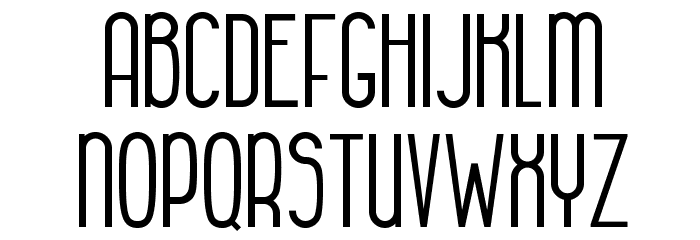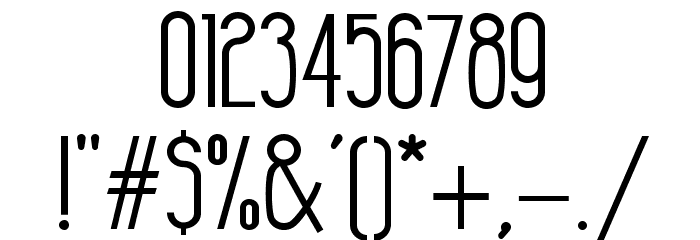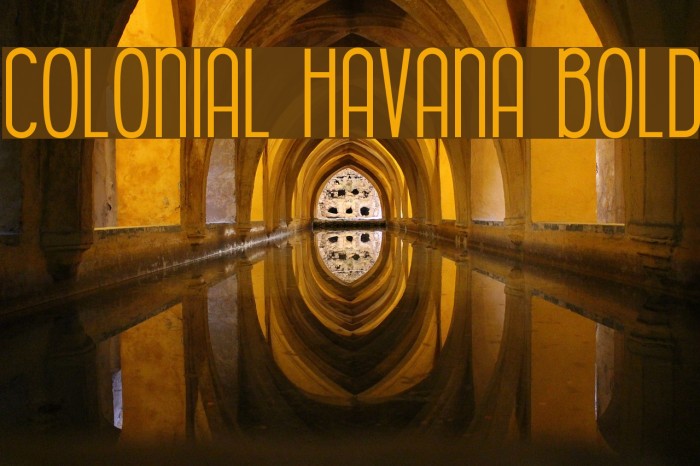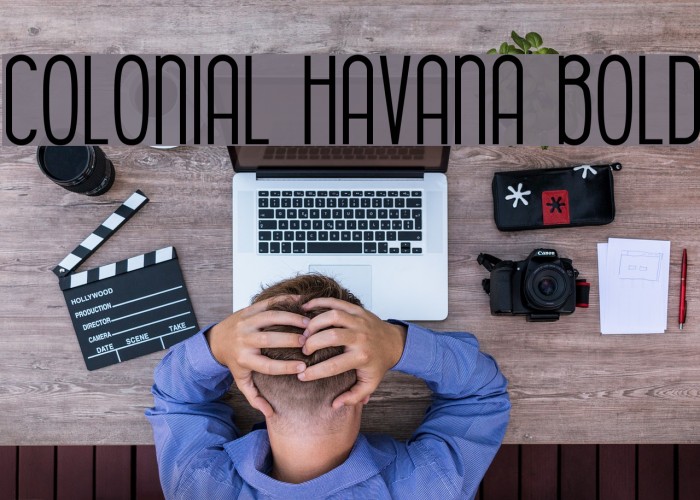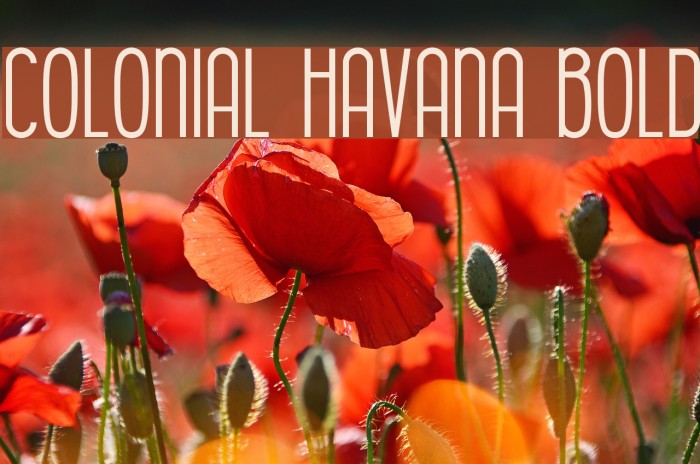
Colonial Havana Bold Font
This font features a tall, narrow design with clean, straight lines and a modern aesthetic. The characters are uniformly structured, providing a cohesive and consistent appearance. The uppercase letters are particularly elongated, giving the font a distinctive look. The numerals and special characters maintain the same narrow and tall proportions, ensuring uniformity across all glyphs. This font's style is both elegant and contemporary, making it suitable for a variety of design applications.
A tall, narrow font with a modern and elegant style.
- Font: Colonial Havana Bold
- Weight: Clara
- Proposed Projects: Ideal for branding, posters, and editorial design where a modern and sophisticated look is desired.
- Category: Sans-Serif